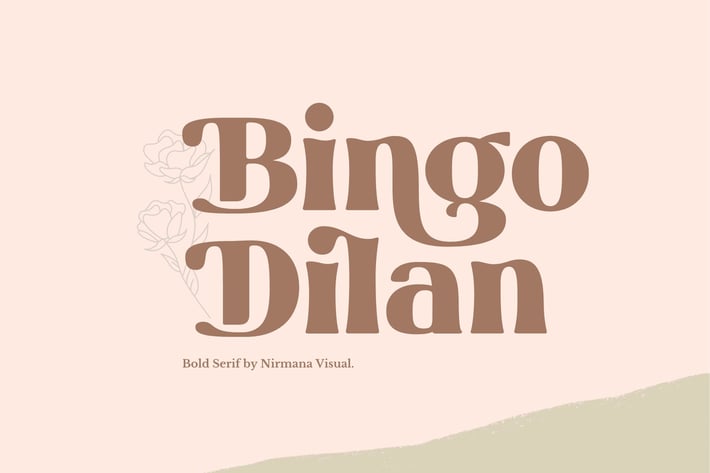
Bingo Dilan - Logo Font
Bingo Dilan is a modern Serif font that is both memorable and stylish.
It's a mix between a classic serif and a futuristic sans serif.
This font is perfect for fashion related branding or editorial design and displays both masculine and feminine qualities.